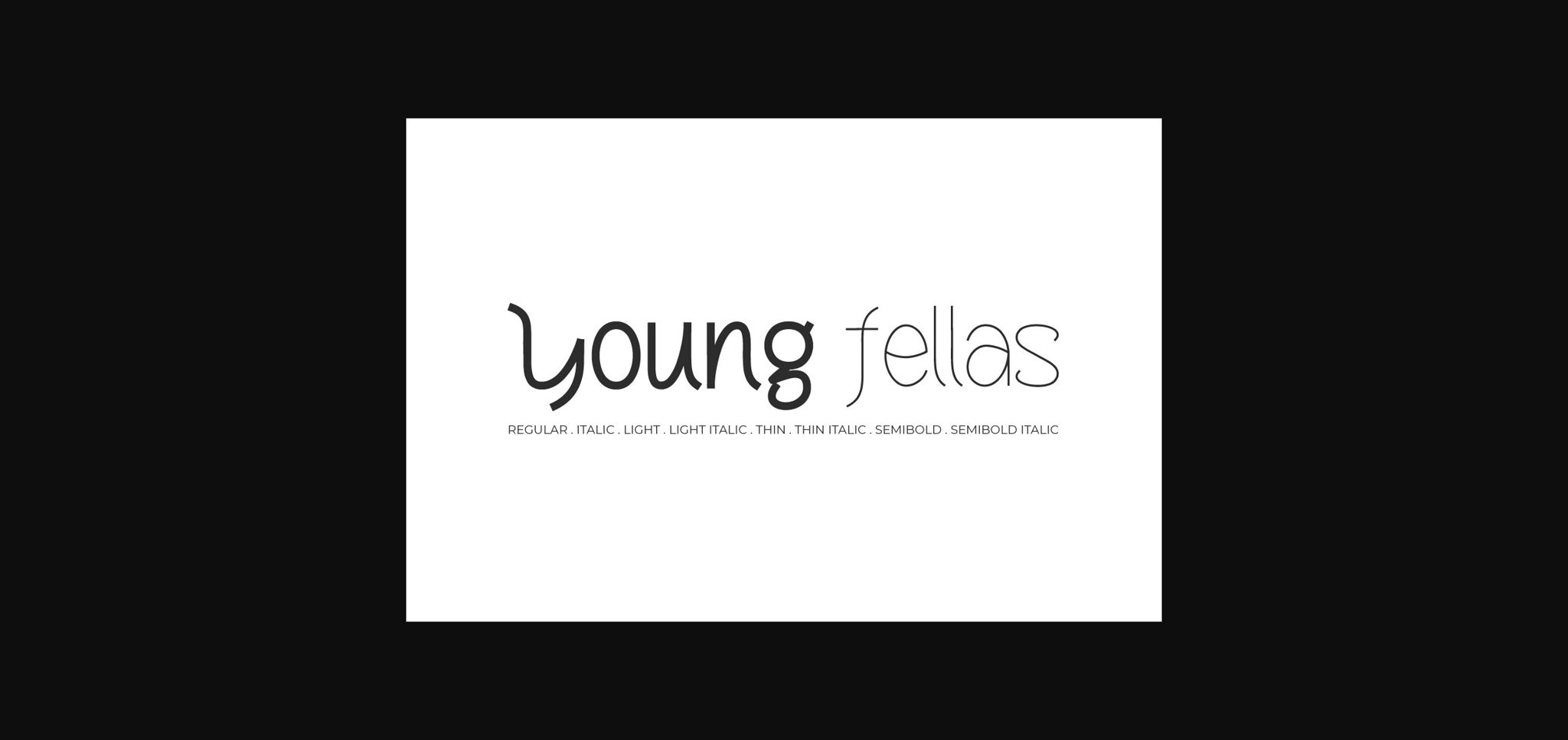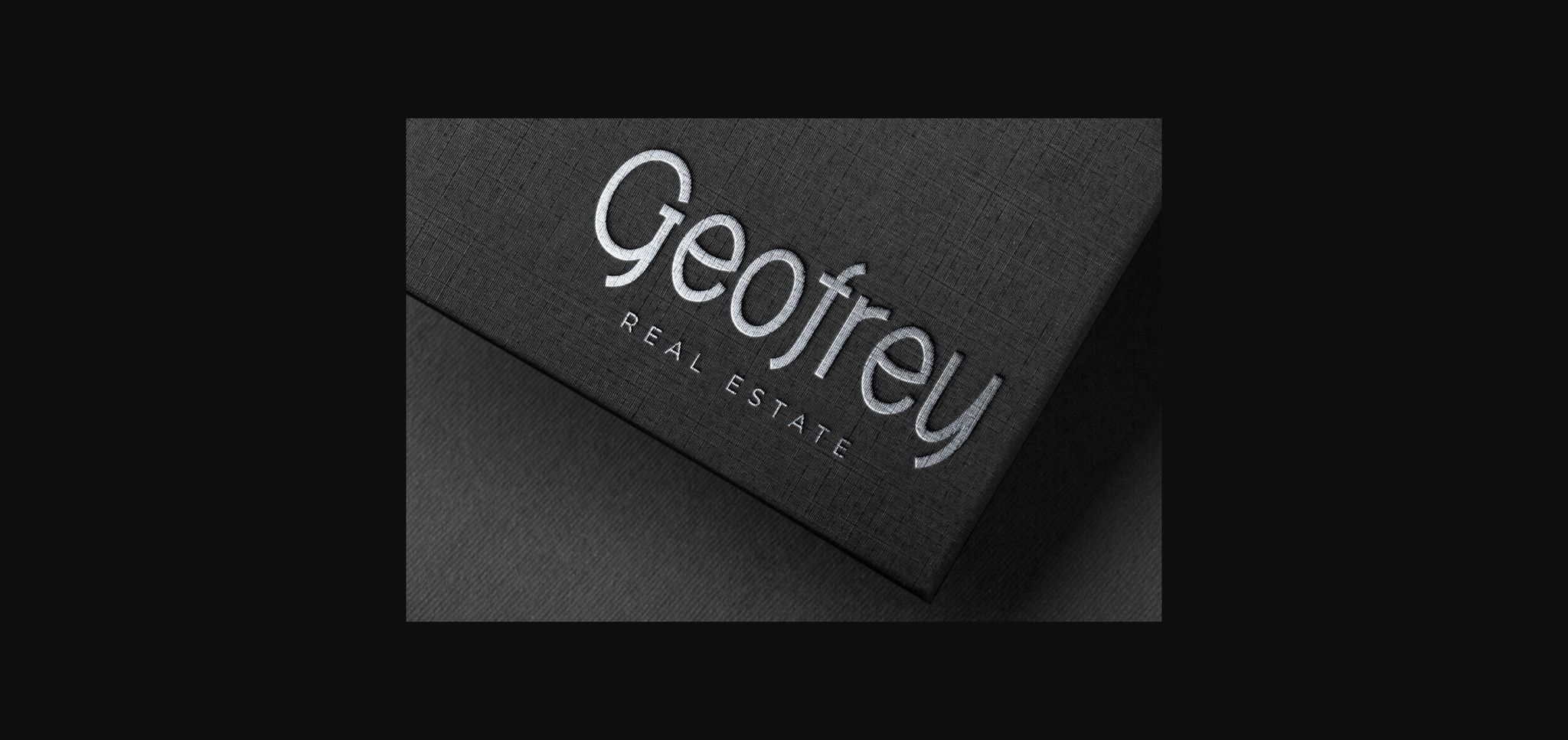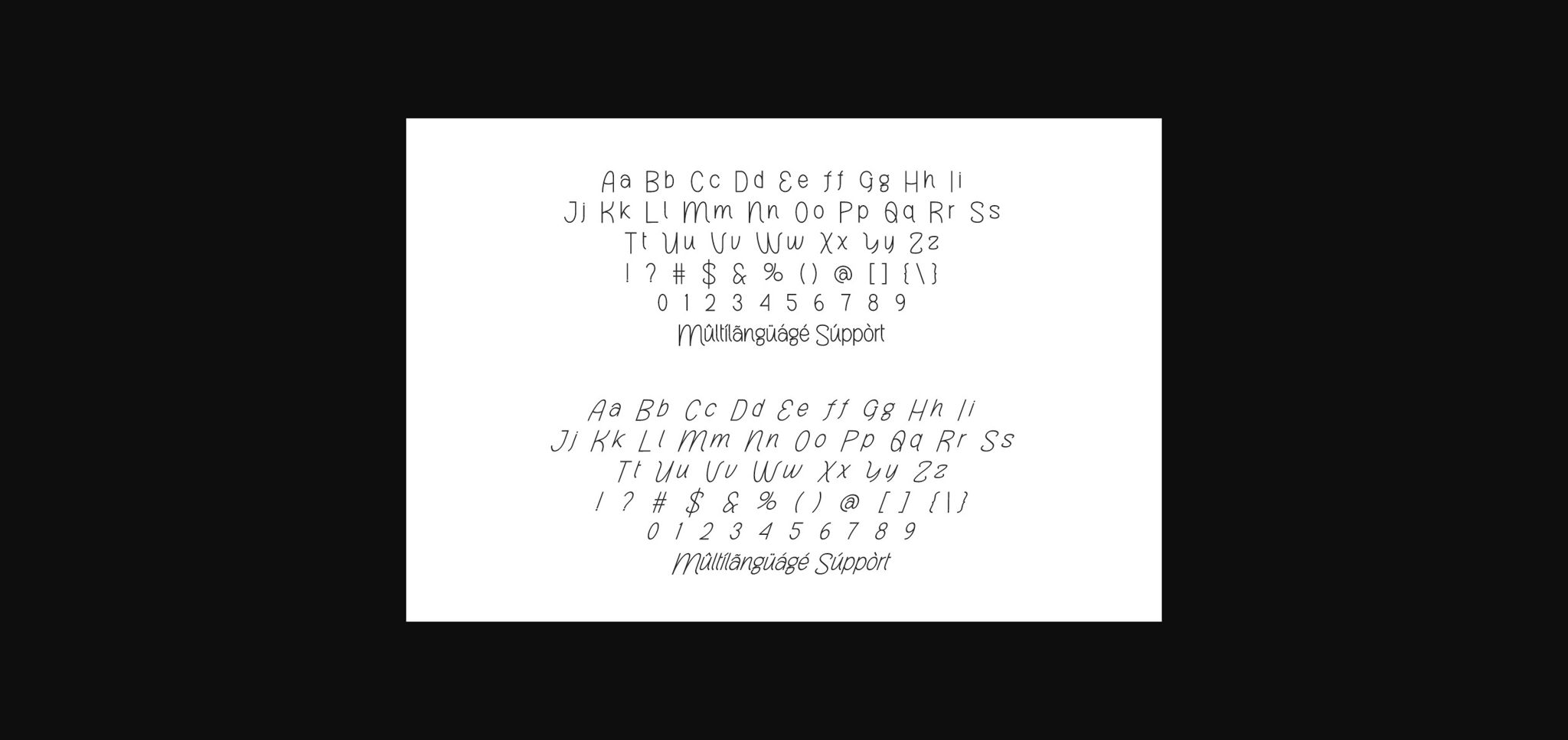
About Young Fellas Font
Young Fellas font is a delightful and casual sans-serif typeface that exudes youthfulness and energy. With rounded edges and a friendly demeanor, it captures a playful essence perfect for informal designs, posters, and invitations. Young Fellas adds a touch of fun and spontaneity to any project with its cheerful vibe.